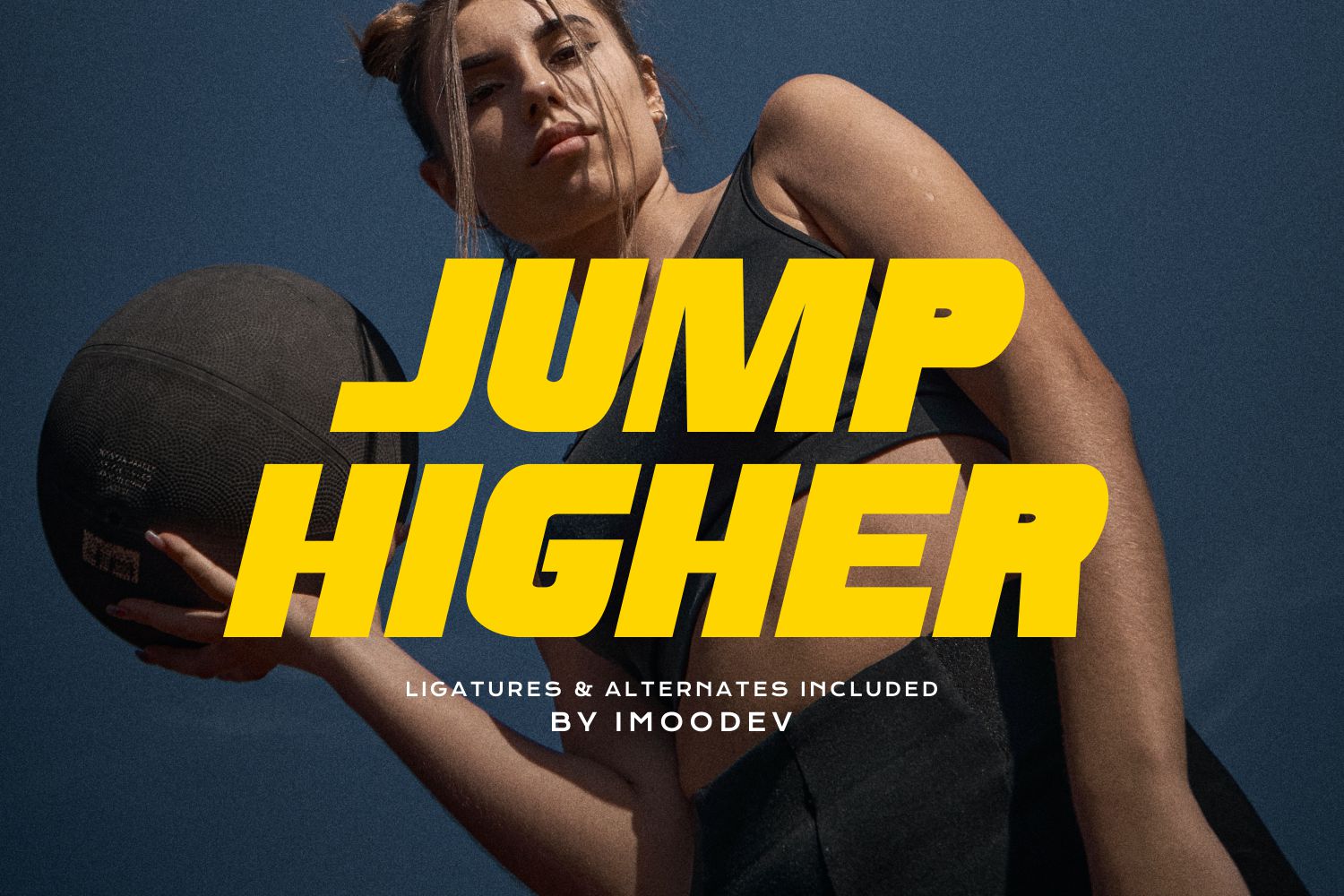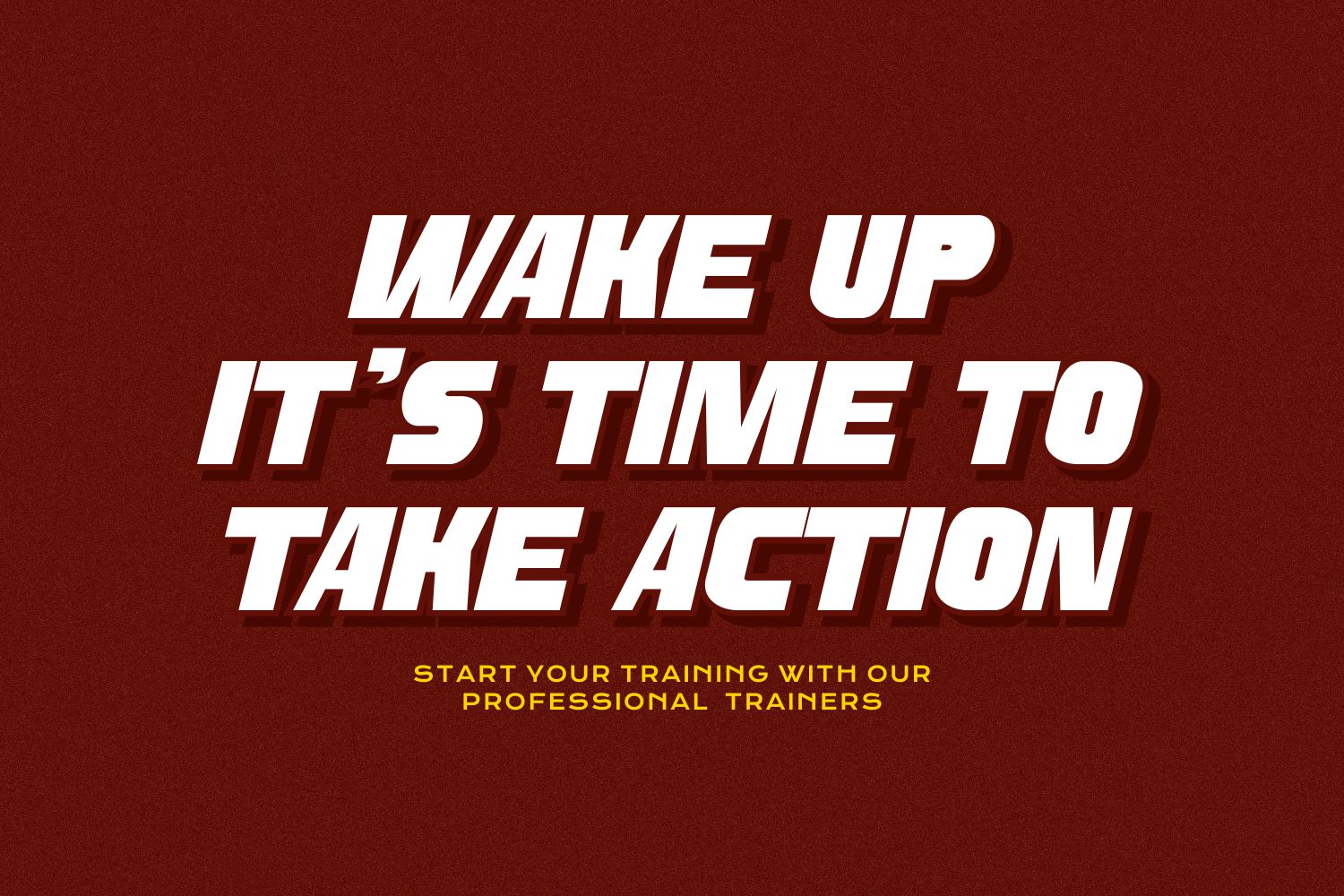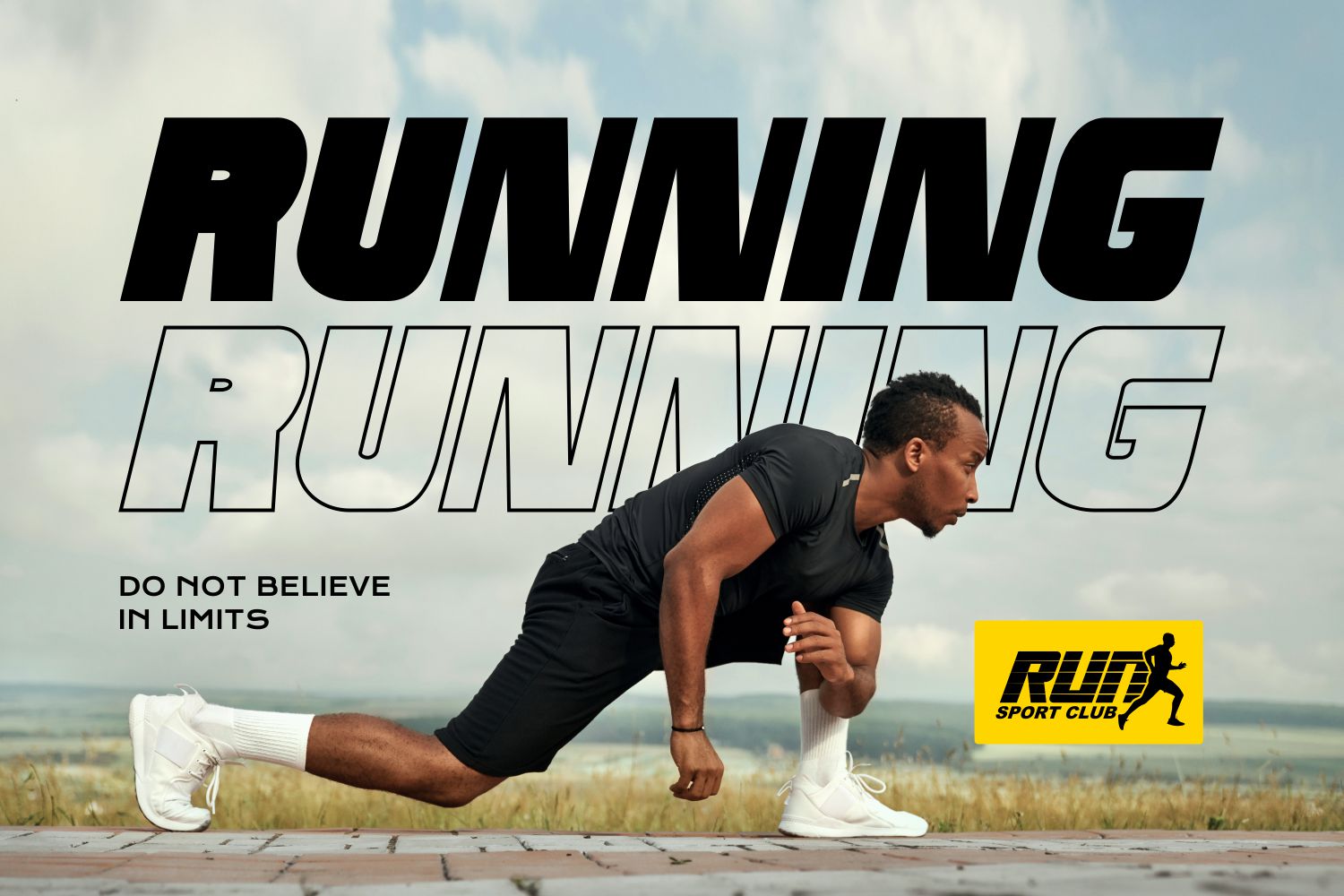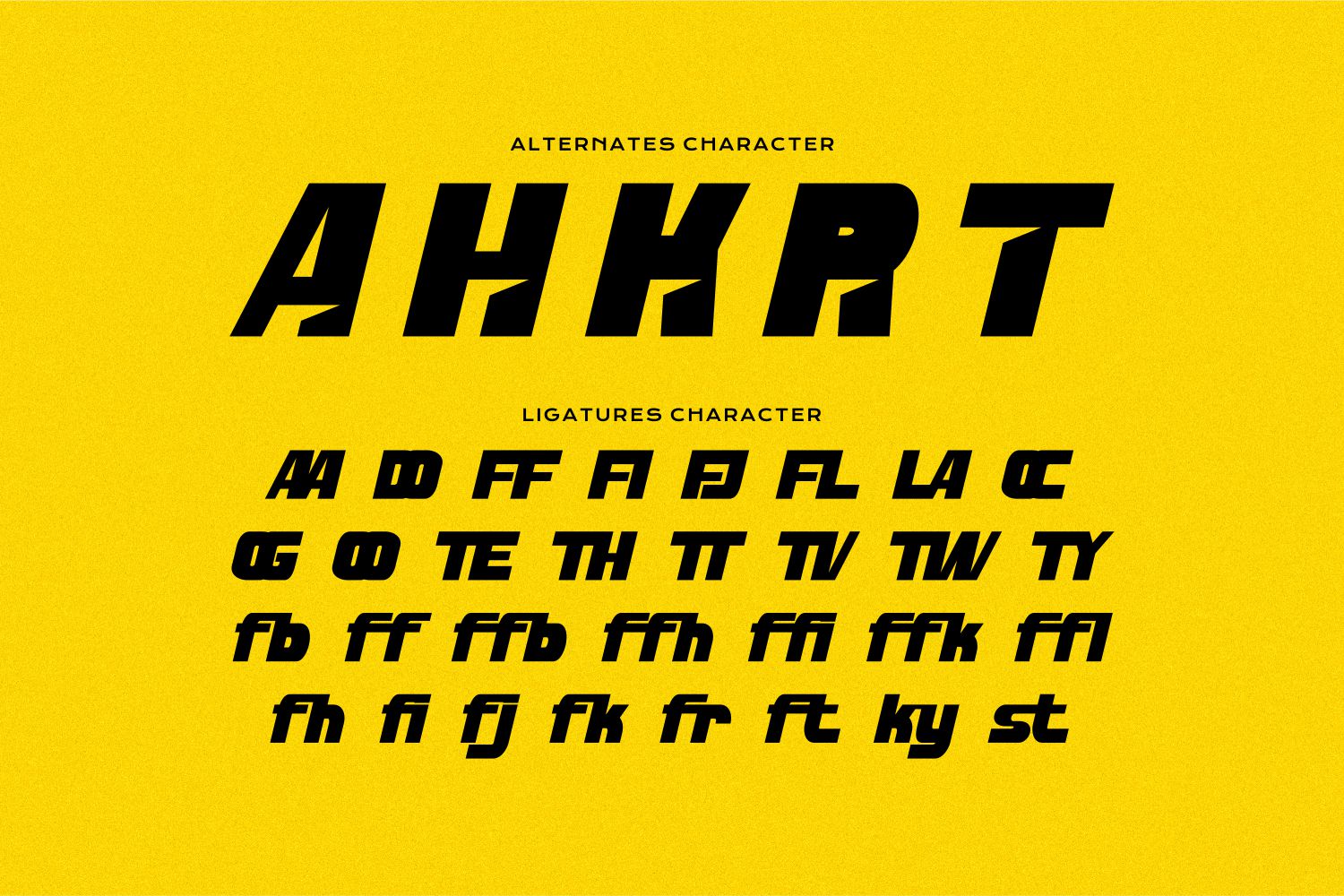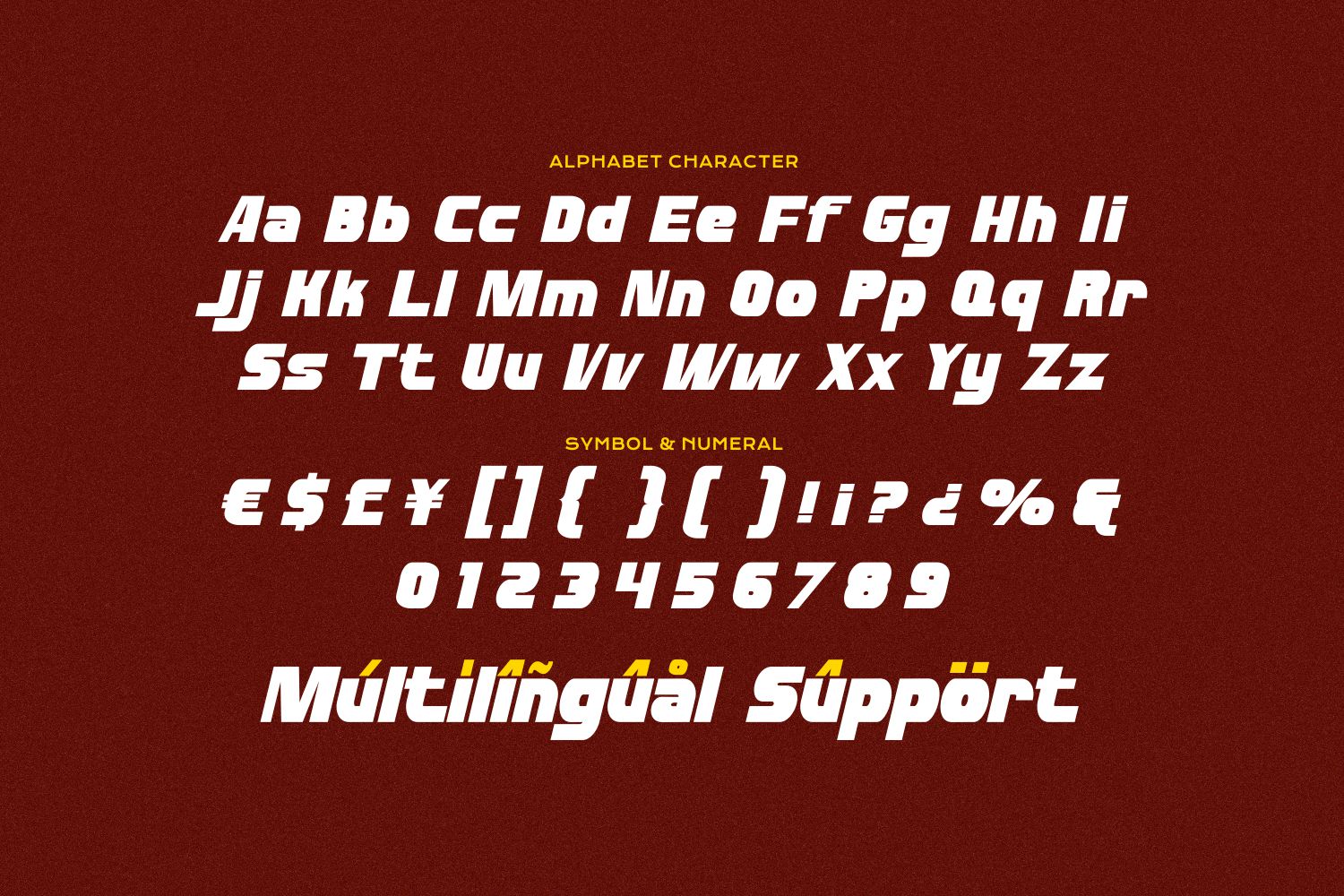
The Jump Higher font is a bold and energetic display typeface designed to capture strength, speed, and confidence. With its powerful letterforms, sharp angles, and modern athletic style, this font is perfect for sports branding, fitness promotions, posters, and motivational campaigns. The dynamic structure of each character conveys movement and determination, making it a great choice for projects that need to inspire action and energy.
Equipped with alternate characters, ligatures, numbers, punctuation, and multilingual support, Jump Higher offers flexibility and versatility for designers. Its impactful presence ensures that headlines, logos, and advertising materials stand out with authority and style. Whether used for gym promotions, sportswear branding, or action-themed content, this font is built to motivate and empower through bold visual identity.